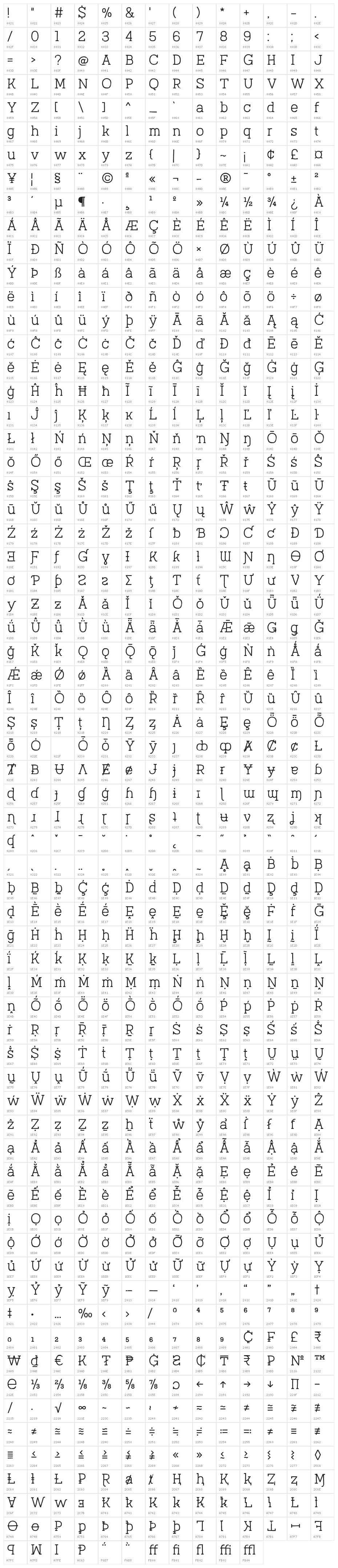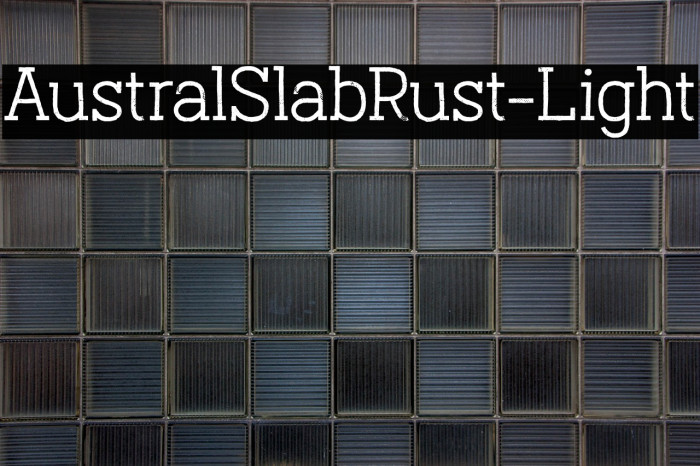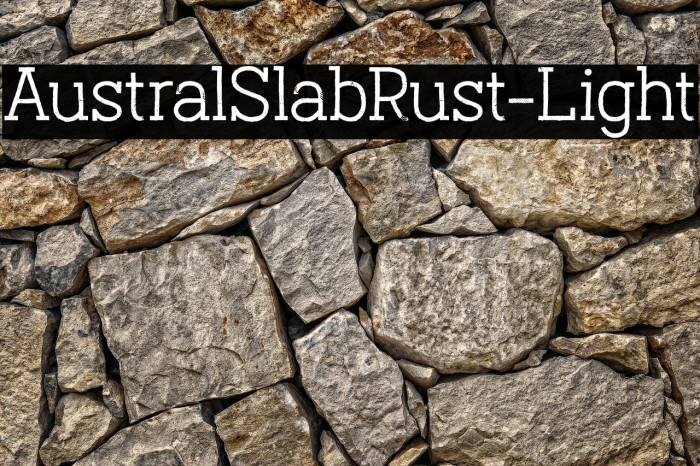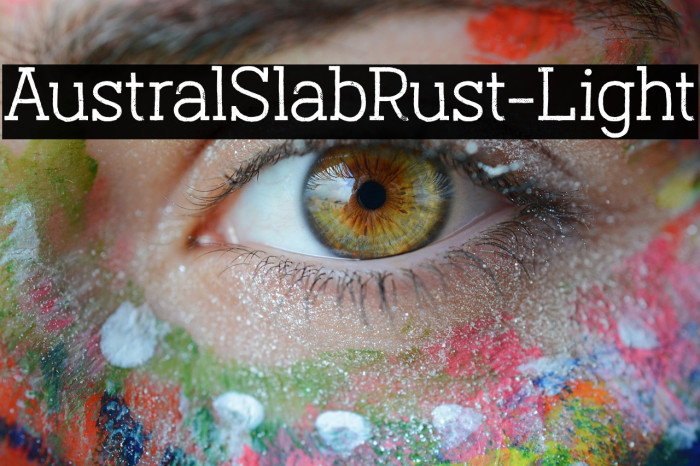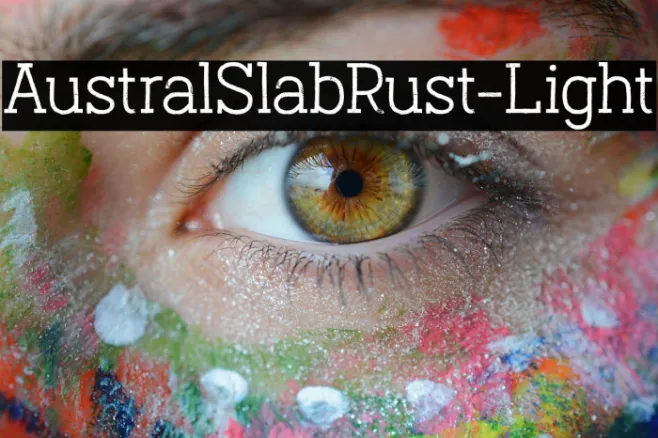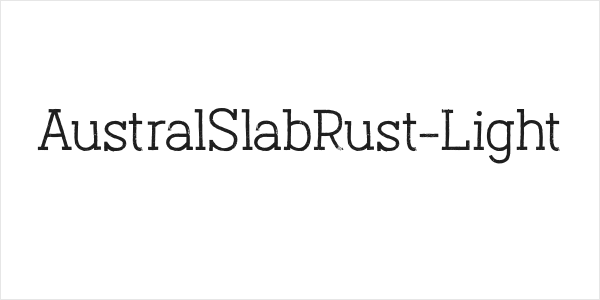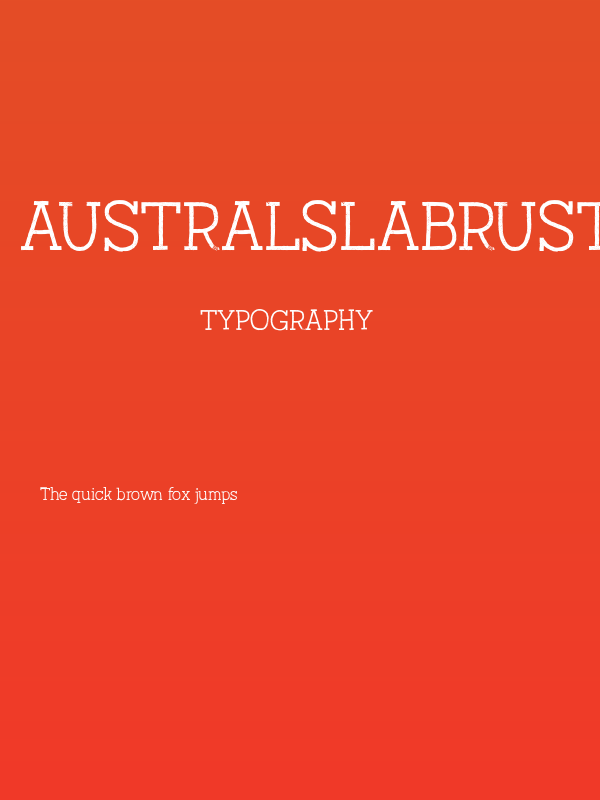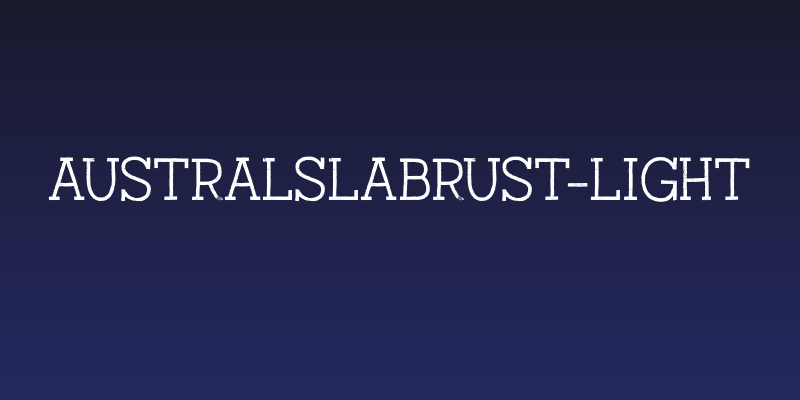
AustralSlabRust-Light Font
AustralSlabRust-Light Description
This font exhibits a rustic, textured appearance with a slab serif style, characterized by thick, block-like serifs. The letters have a slightly distressed look, giving them a vintage and handcrafted feel. The uppercase and lowercase letters maintain a consistent height and width, providing a balanced and uniform appearance. The numbers and special characters follow the same stylistic cues, ensuring cohesion across all glyphs. The overall design is both bold and approachable, making it suitable for projects that require a touch of authenticity and charm.
| Proposed Projects | Ideal for branding, packaging, posters, and any design that seeks a vintage or handcrafted aesthetic. |